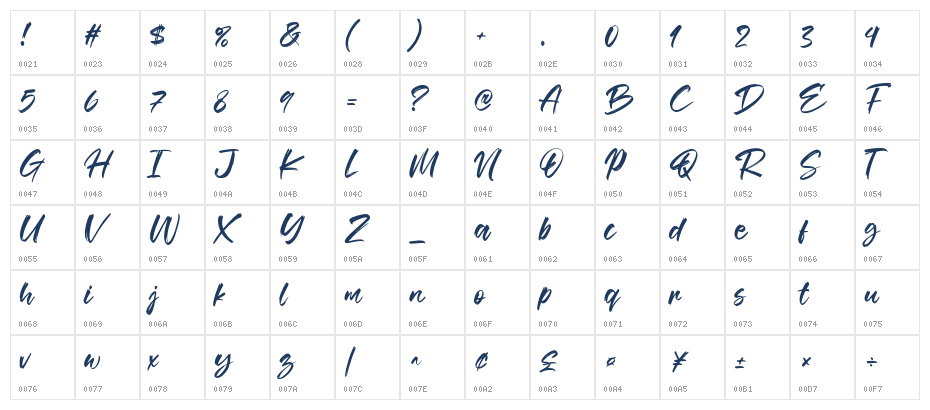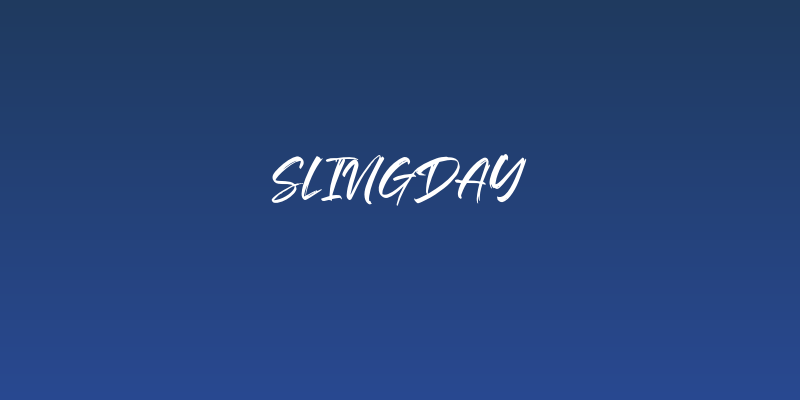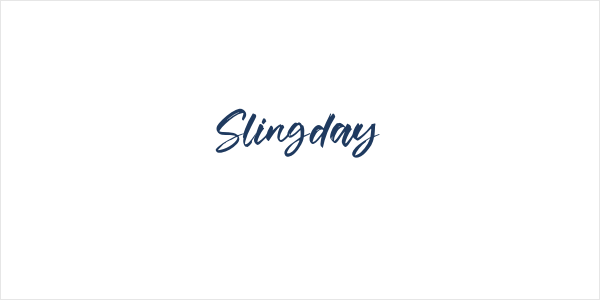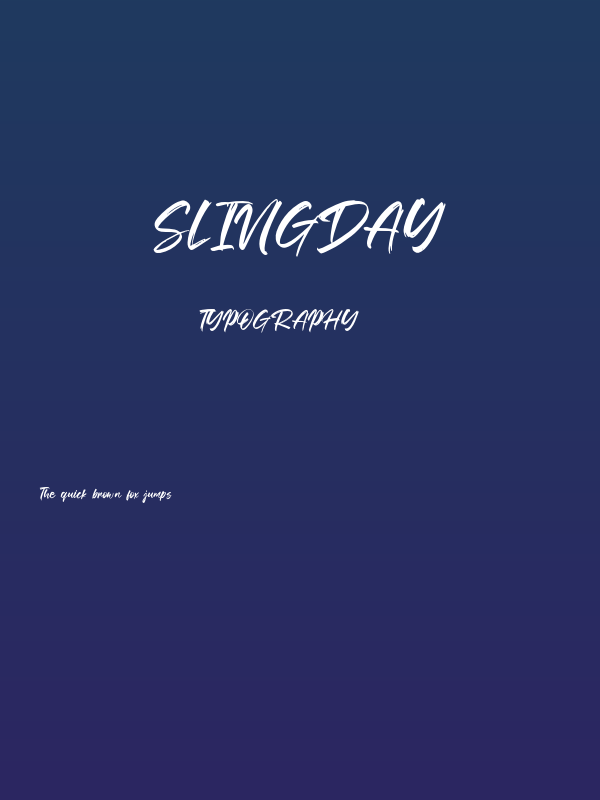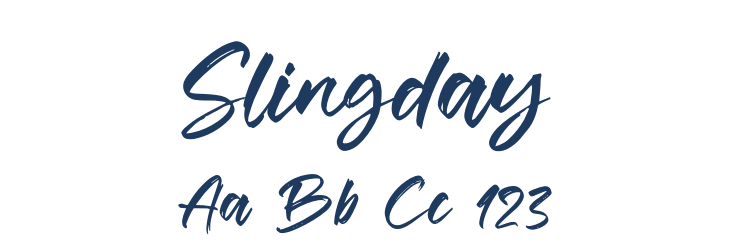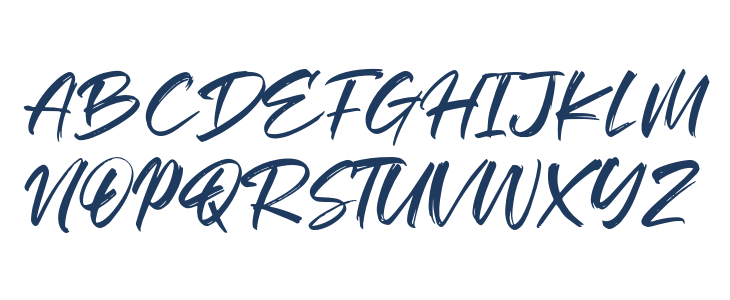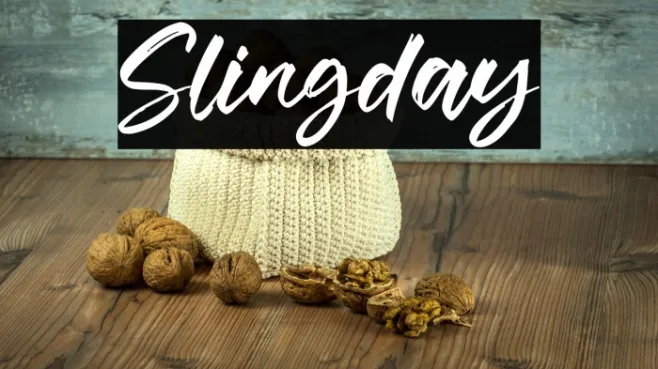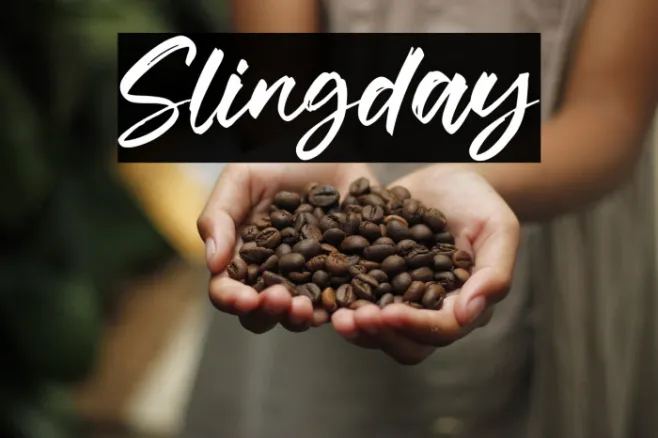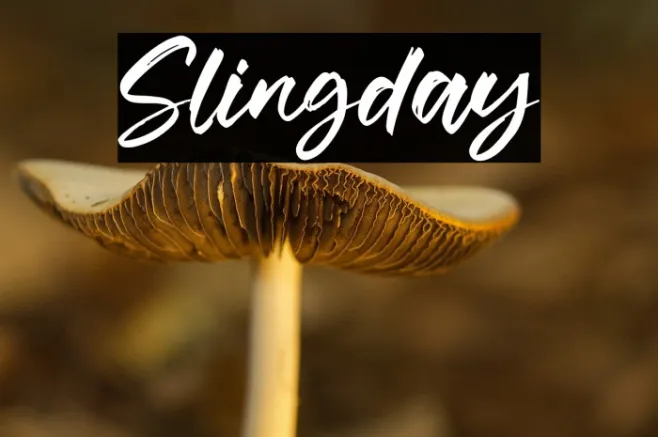
Slingday Font
Slingday Description
A casual, brush script font with a handwritten style, featuring smooth, flowing strokes and a slightly textured appearance.
| Overall Style | Casual, Artistic, Handwritten |
| Use Case | Headlines, Logos, Invitations, Branding |